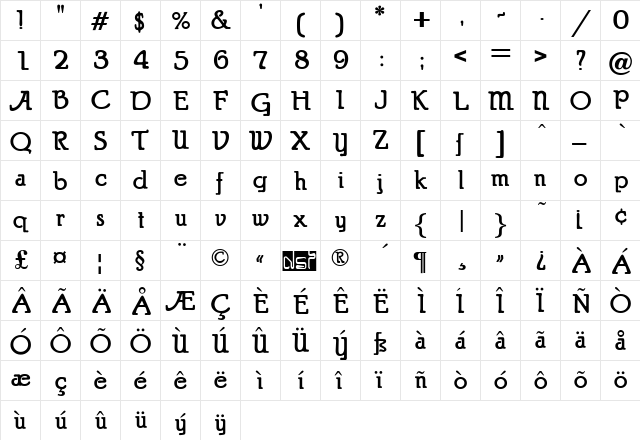
Puritan Alternate Regular
Design Context for Puritan Alternate Typeface
Puritan Alternate is a composed and adaptable typeface that performs quietly and consistently across a wide range of design contexts.